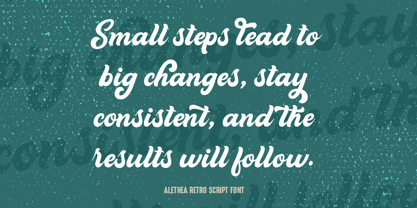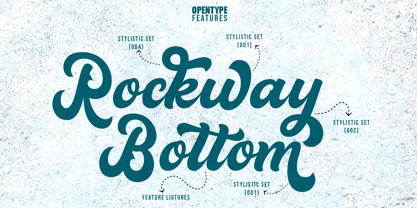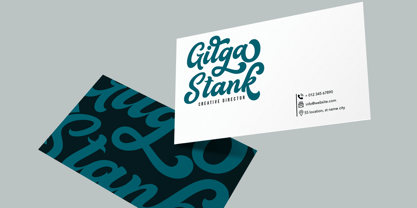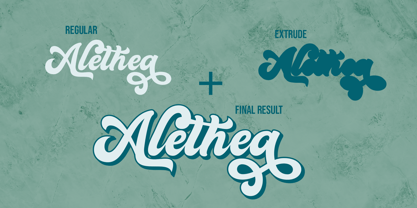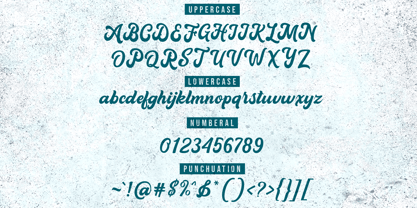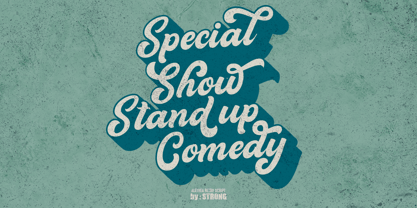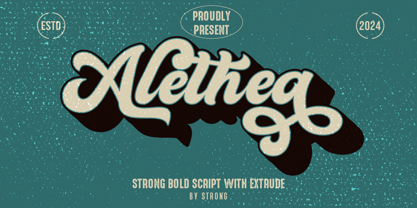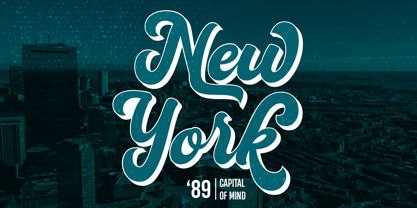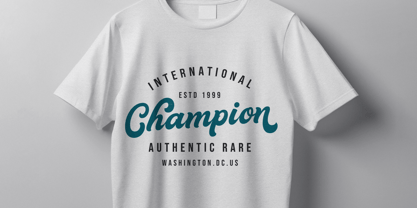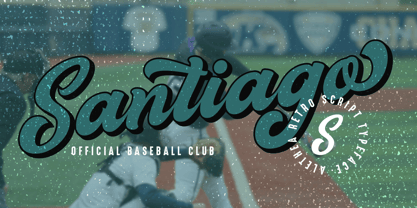
Alethea
by Strong
The Alethea Font Family was designed by Nanda Putra Sukmayadi and published by Strong. Alethea contains 2 styles and family package options. More about this family
Alethea is a vintage retro font. Inspired by retro typography and lettering from the 70s and 80s combined with a bold typographic style. This font is perfect for vintage and retro designs, badges, logos, t-shirts, posters, branding, packaging, signs, book covers and more!
Designers: Nanda Putra Sukmayadi
Foundry: Strong